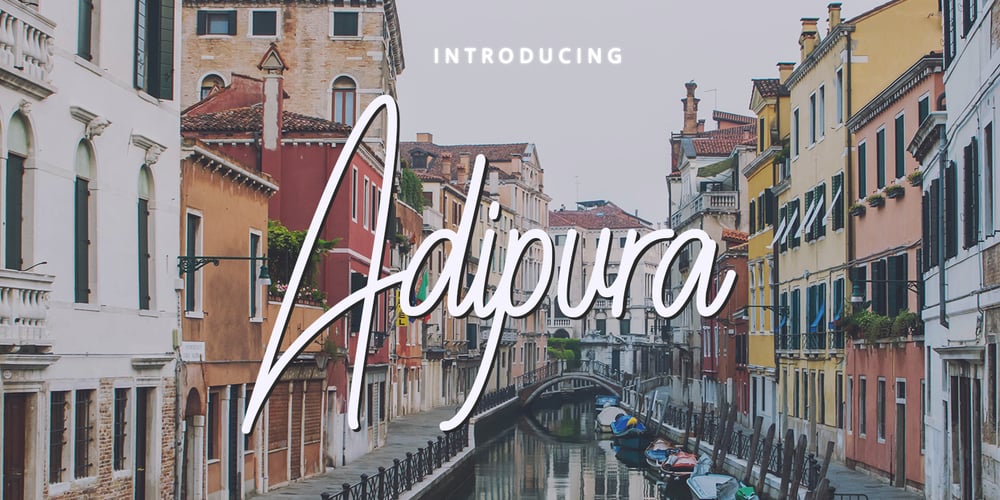
Adipura Font Family was designed by Amar Lettering and published by Just Lett. Adipura contains 1 styles and family package options. Adipura is a script and handwritten font, and is perfect for your all design project such as wedding invitation design, book cover design, banners, logos, short quotes, flyer designs, typography, signatures, and more. Features: ~ UPPERCASE ~ lowercase ~ Numeral and Punctuation ~ Multilingual Accent